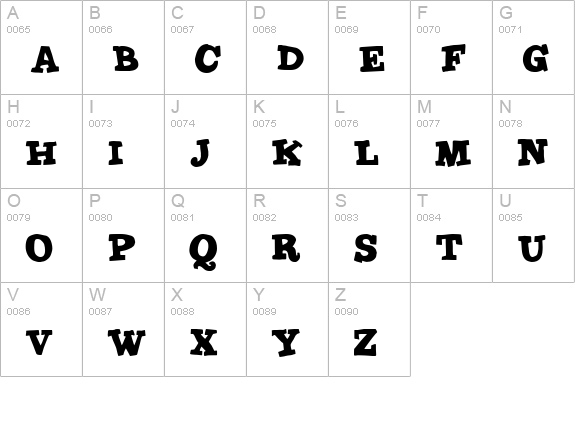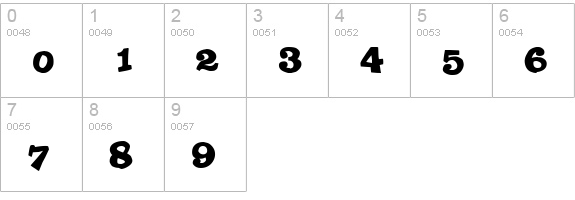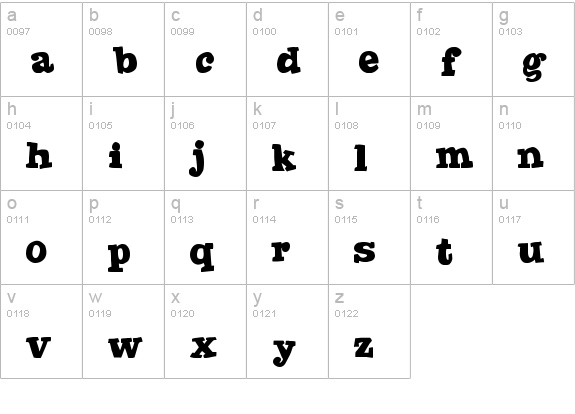
Joint by PizzaDude Font Details
Joint by PizzaDude is a funky and playful font that adds a touch of whimsy to any design project. With its unique style and quirky letter shapes, Joint is sure to stand out and make a statement. This font is perfect for creating eye-catching headlines, posters, logos, and more. Best of all, Joint is available for free download at FontsMarket.com, making it accessible to all designers looking to add a fun twist to their work. Get your hands on Joint today and let your creativity shine!